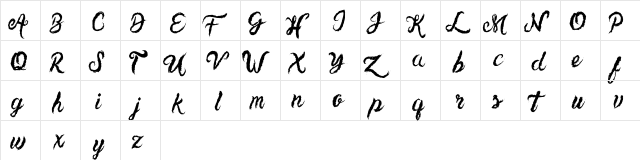
Unlimited Toppings Script Regular
Design Context for Unlimited Toppings Script Typeface
Unlimited Toppings Script brings a calligraphic fluidity to the page — its connecting strokes and expressive curves give it an unmistakably human quality.